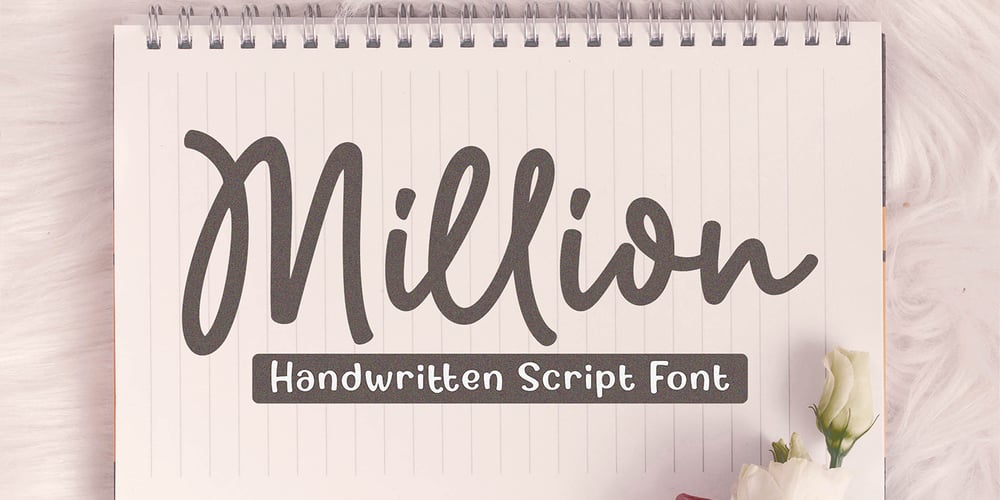
Million
Million font
Million Font Family was designed by Rangga Subekti and published by Subectype. Million contains 1 styles and family package options. Million is a natural handwritten Script font. Its unique flow and easy signature style makes it perfect to use for invitations, logos, signatures, quotes, wedding, labels, packaging design, blog headlines or simply use it in your next design project.I hope you enjoy this font. If you have any questions please don’t hesitate to drop me a message :)Thank You, Subectype